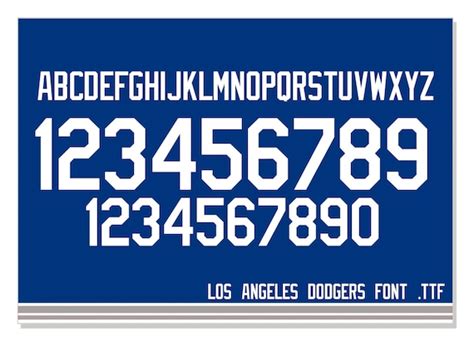
Create Awesome Dodger Fonts: Your Ultimate Guide
Hey guys! Ever wanted to create your own custom Dodgers-themed designs ? Maybe you’re looking to make some cool graphics for a party, design a unique t-shirt, or just show off your love for the Boys in Blue on social media. Well, you’re in the right place! We’re diving deep into the world of the idodger baseball font generator . It’s the perfect tool to help you craft amazing text that screams “Dodgers!” We’ll explore what it is, how to use it, and why it’s a home run for any Dodgers fan. Get ready to level up your fan game and make some seriously eye-catching designs!
What is an idodger Baseball Font Generator?
So, what exactly is an idodger baseball font generator ? Simply put, it’s an online tool designed to create text in a style closely resembling the official font used by the Los Angeles Dodgers. It’s not just about typing some words and hoping for the best. These generators meticulously replicate the distinctive characteristics of the Dodgers’ font, including its specific weight, style, and sometimes even the unique details you find on the team’s official merchandise and branding. These generators, when you find a good one, can be your secret weapon to creating designs that look professionally made and authentically Dodger. It allows you to transform plain text into something special, giving your projects that sought-after look of a true fan! There are so many options that can make your design pop out, and make it look as if the real deal team did it.
The Key Features
The best idodger baseball font generators often include a range of features. First of all, they replicate the iconic font, this is the main reason to have it. Next, they offer customization options. While the goal is to mirror the Dodgers’ style, many generators allow you to adjust things like text size, color, and sometimes even offer subtle variations to suit your needs. Color options are definitely important! You can find the best blue and white options with ease. Some generators even provide the ability to add outlines, shadows, or other effects to your text, allowing you to add even more of a design aspect. Finally, easy exporting is a must, you need the options to be able to export it as an image or a downloadable file format that you can use in other design software. The best generators will make sure that the whole process is user-friendly, allowing users of all experience levels to create fantastic designs without needing any advanced graphic design skills. Keep in mind that not all generators are created equal. Some are basic, offering only the core font replication, while others are advanced, with a plethora of customization options. Choosing the right one depends on your needs, but having a solid set of features is critical to a good outcome.
How to Use an idodger Baseball Font Generator
Okay, so you’re ready to jump in and start creating your own Dodgers-themed designs . Let’s break down how to use these font generators step by step. First, you’ll need to find a generator online. A quick search will pull up several options. Look for generators that have good reviews and a user-friendly interface. When you’re ready, enter your text. Once you’ve selected your favorite one, type in the text you want to convert. This could be anything from a simple “Go Dodgers!” to a more complex phrase or even a name. After you’ve got your text, it’s time to customize! This is where you can select the size, color, and any other effects offered by the generator. Many generators will give you a live preview, so you can see how your text will look in real-time. This is super helpful for making adjustments before you finalize your design. The final step is to save your work. Once you’re happy with your design, you’ll want to save it. Most generators allow you to download your text as an image file. Once you’ve saved your file, you can use it in any design software or social media post. Voila! You’ve created some awesome Dodgers-themed text.
Tips for Getting the Best Results
Alright, let’s talk about some pro tips to help you get the best results when using an idodger baseball font generator . First, remember the context. Think about where you’ll be using your text. If you’re creating a design for print, you might need a higher-resolution file than if you’re posting on social media. Next, consider your background. The color of your text should contrast well with the background it will be placed on. The text should be clearly readable. Sometimes, a subtle outline or shadow can make your text pop, especially against a busy background. Be creative with your color combinations. While the official Dodgers colors are blue and white, feel free to experiment with other colors that complement the team’s branding. Try other variations! Experiment with different sizes and arrangements. Play with different effects to see what looks best. The great thing about these generators is that they make it easy to try out different options without needing any advanced skills. Have fun! The most important tip is to have fun and enjoy the process. The best designs are often created when you’re feeling creative and inspired. So, let your imagination run wild and don’t be afraid to try new things.
Where Can You Use Your Dodger Fonts?
You’ve created some awesome Dodgers fonts , now what? There are tons of ways to show off your designs! One of the most common is for social media. Perfect for profile pictures, cover photos, or sharing your love for the Dodgers. Create graphics for game day posts, celebrate wins, or support your favorite players with custom text. You can make custom merchandise. Design your own t-shirts, mugs, hats, or posters. Add your own text to make it unique and show your Dodgers pride. Use it for party decorations. If you’re hosting a Dodgers-themed party, you can use your custom fonts for banners, invitations, and other decorations. Make your party unforgettable! Design digital invitations. Create custom invitations for events, birthdays, or game-watching parties. A personalized invitation adds a special touch. Create custom stickers. Design unique stickers to give to your friends and family. Put them on laptops, water bottles, or notebooks. No matter where you decide to use them, your custom fonts are guaranteed to make a statement and show the world your love for the Dodgers.
Ideas for Inspiration
If you’re feeling stuck, here are a few ideas to get your creative juices flowing with the idodger baseball font generator . Create a personalized team banner. Design a banner with your name or a message of support for the team. Make a motivational quote. Use a powerful quote to inspire yourself or others. Make a “Go Dodgers!” design with a cool background. It is a timeless classic that always works. Design a player-specific graphic. Highlight your favorite player with their name and number. Create a custom schedule graphic. Make a schedule to keep up with the games, and use the custom font for a unique feel. Design a welcome sign for a viewing party. Welcome guests in style with a custom sign. These are just a few ideas to get you started. The possibilities are truly endless, so go ahead and get creative!
Choosing the Right idodger Baseball Font Generator
Now, let’s talk about choosing the best idodger baseball font generator for your needs. First, consider the features. Does the generator offer the customization options you need? Look for options like color selection, size adjustment, and special effects. Consider the user-friendliness. Is the interface easy to navigate and understand? Look for generators that are intuitive and easy to use, especially if you’re new to graphic design. Check the reviews. See what other users are saying about the generator. Look for positive feedback and testimonials. Make sure the output quality is good. Does the generator produce high-quality images that you can use for your projects? Look for generators that offer a range of export options. Look at the price. Some generators are free, while others offer premium features for a fee. Choose one that fits your budget and needs. Do some research. Before you commit to a generator, do some research. Try out a few different options to see which one you like best. Choosing the right generator is essential for getting the perfect results, so take your time and find one that works for you.
Free vs. Paid Options
When it comes to idodger baseball font generators , you’ll often find a mix of free and paid options. Free generators can be a great starting point, especially if you’re just getting started. They usually offer basic features and are perfect for simple designs. However, they may have limitations such as fewer customization options or watermarks. Paid generators often offer more advanced features, such as more font styles, a wider range of customization options, and the ability to export in higher resolutions. They may also come with customer support. The best choice for you depends on your needs and budget. If you’re a casual user, a free generator might be enough. If you’re a serious designer or need advanced features, a paid generator is likely the better choice. Consider what features are most important to you and make your decision based on that. In either case, both of them are great.
Conclusion: Go Dodgers!
So, there you have it, guys! The ultimate guide to the idodger baseball font generator . Now you know what it is, how to use it, and where you can use your amazing designs. Creating custom Dodgers-themed graphics has never been easier, and with the right tools, you can take your fan game to the next level. So go ahead, find the perfect generator, unleash your creativity, and let your Dodgers pride shine. Whether you’re designing social media posts, merchandise, or party decorations, your custom Dodger fonts will make your creations stand out. Now get out there and show the world your love for the Boys in Blue! Go Dodgers!